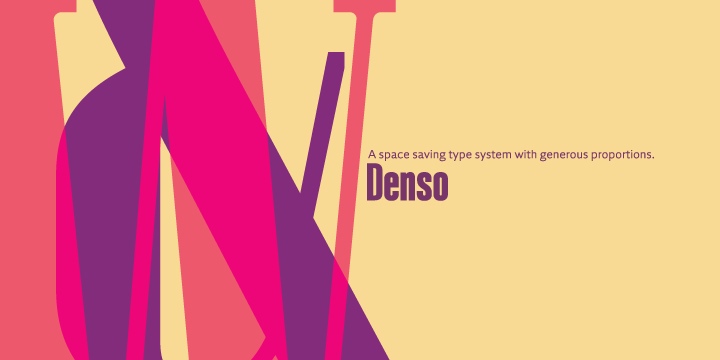
Denso Font
Denso Font excels in compact magazine layouts, space-efficient newsletters, dense data presentations, annual report designs, technical documentation, financial statements, scientific publications, legal document formatting, information-heavy infographics, dense text applications, condensed advertising copy, and professional business communications where maximum information density and optimal space utilization are critical requirements.
This remarkable typeface generates excitement through its exceptional ability to maximize readability while minimizing spatial footprint, creating typography that delivers outstanding performance in space-constrained environments. Denso Font distinguishes itself with its intelligently compressed letterforms that maintain excellent legibility despite their condensed proportions, featuring carefully optimized character spacing and precisely calibrated stroke weights. The font's dense design approach reflects contemporary information design principles, incorporating advanced optical adjustments that ensure clarity and readability even in challenging layout conditions. Its systematic compression methodology allows designers to fit significantly more content without sacrificing professional appearance or reading comfort.
The Denso Font family includes multiple density variations such as Regular, Medium, Bold, and Extra Bold weights, each maintaining optimal legibility while offering different levels of visual hierarchy. The collection features condensed and ultra-condensed versions that provide maximum space efficiency for extremely tight layout requirements. Advanced character sets include technical symbols, mathematical operators, and specialized punctuation marks essential for professional document design. OpenType features optimize letter spacing and kerning for superior performance in dense text applications.
Professional communicators consistently choose Denso Font Free Download for projects requiring maximum information density without compromising readability or professional presentation standards. This exceptional typeface performs brilliantly in applications where space limitations demand creative typography solutions while maintaining clear communication effectiveness. The font's efficient design makes it particularly valuable for organizations that need to present complex information within strict spatial constraints.
Whether you're designing annual reports with extensive data, creating technical manuals, developing information-dense marketing materials, or formatting legal documents, Denso Font delivers unmatched spatial efficiency. Its ability to compress information while preserving clarity makes it invaluable for professional applications where every millimeter of space matters. The font's dense performance ensures your designs will communicate maximum information effectively while maintaining the professional appearance essential for credible business communications.